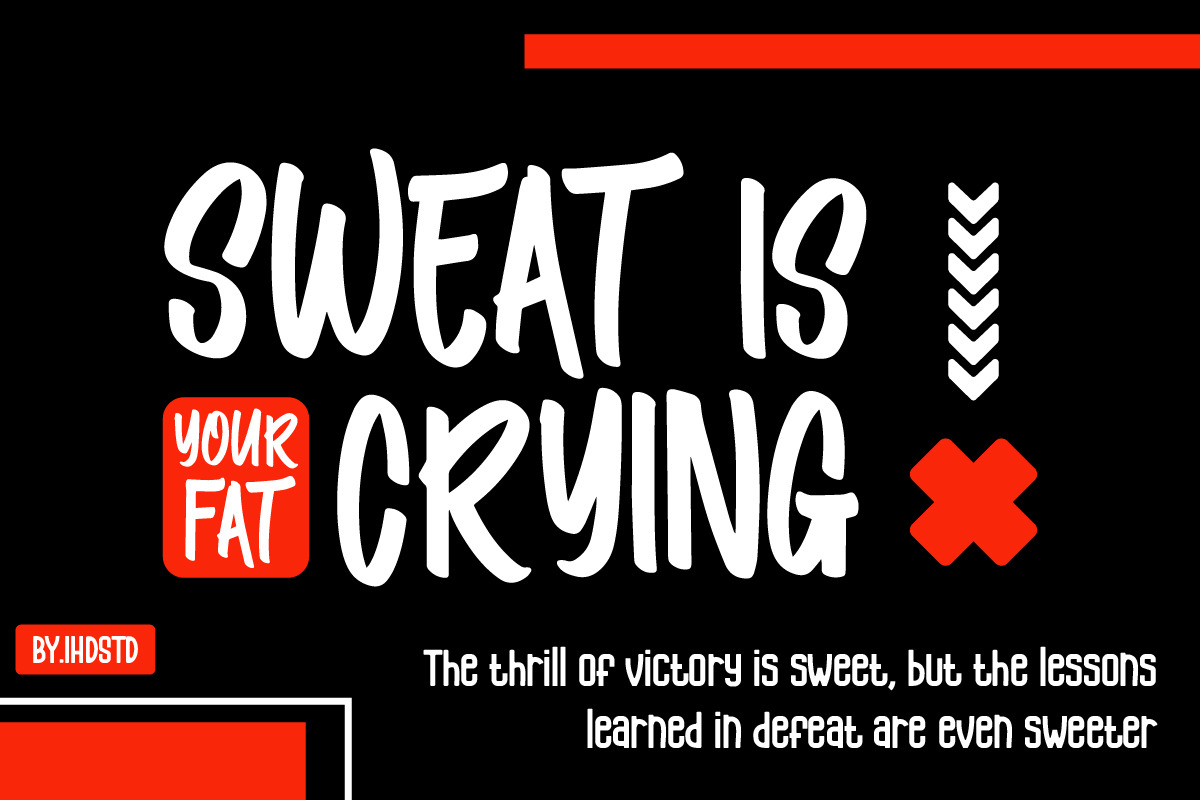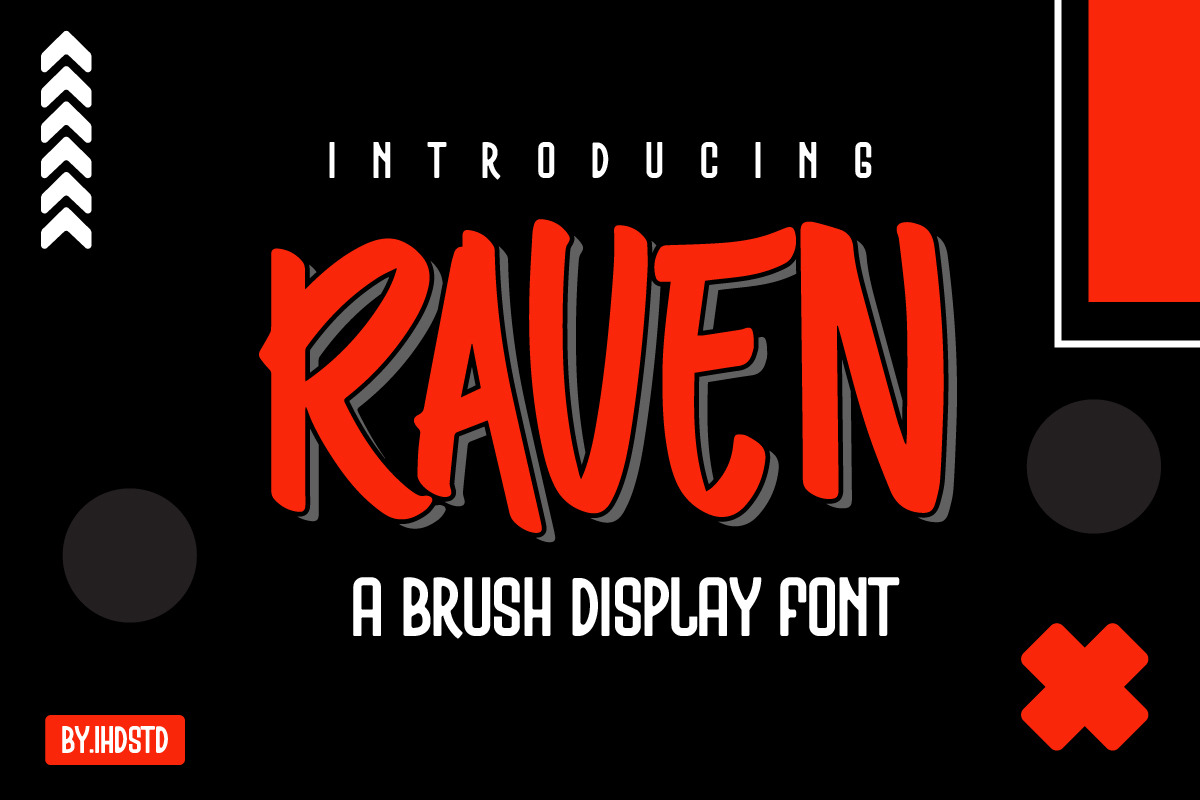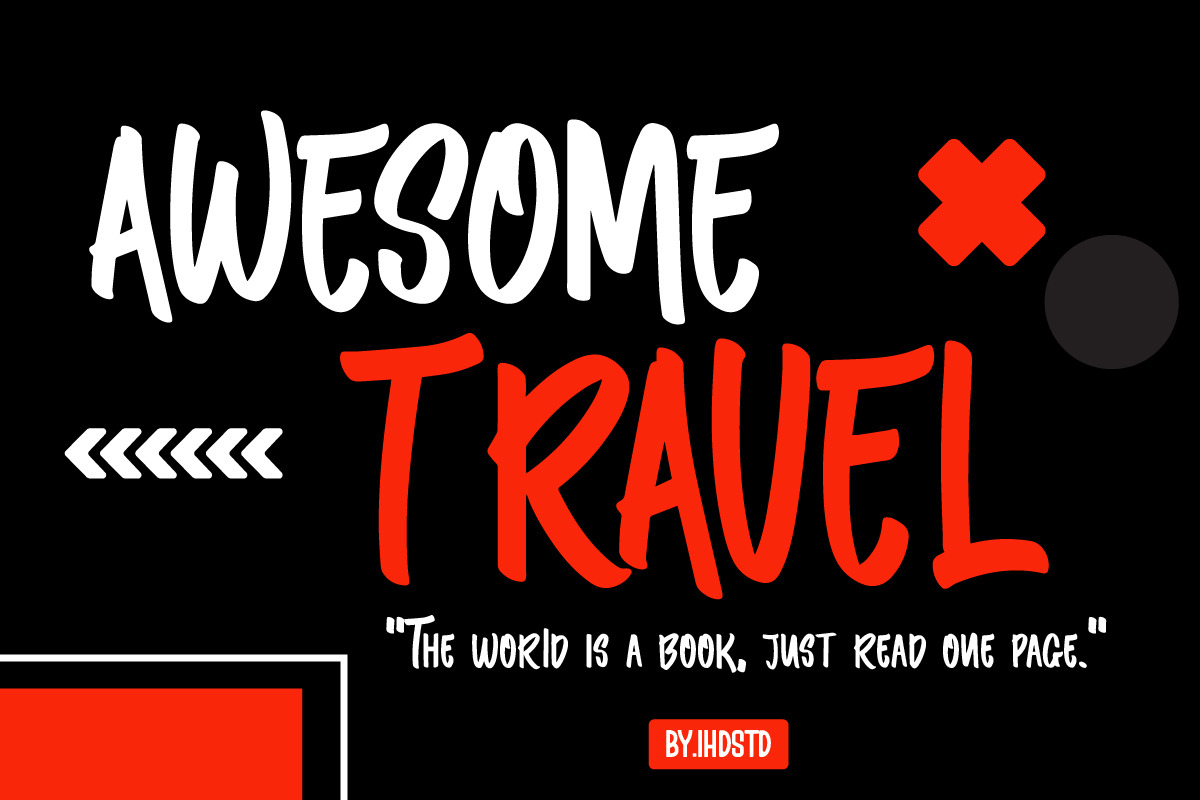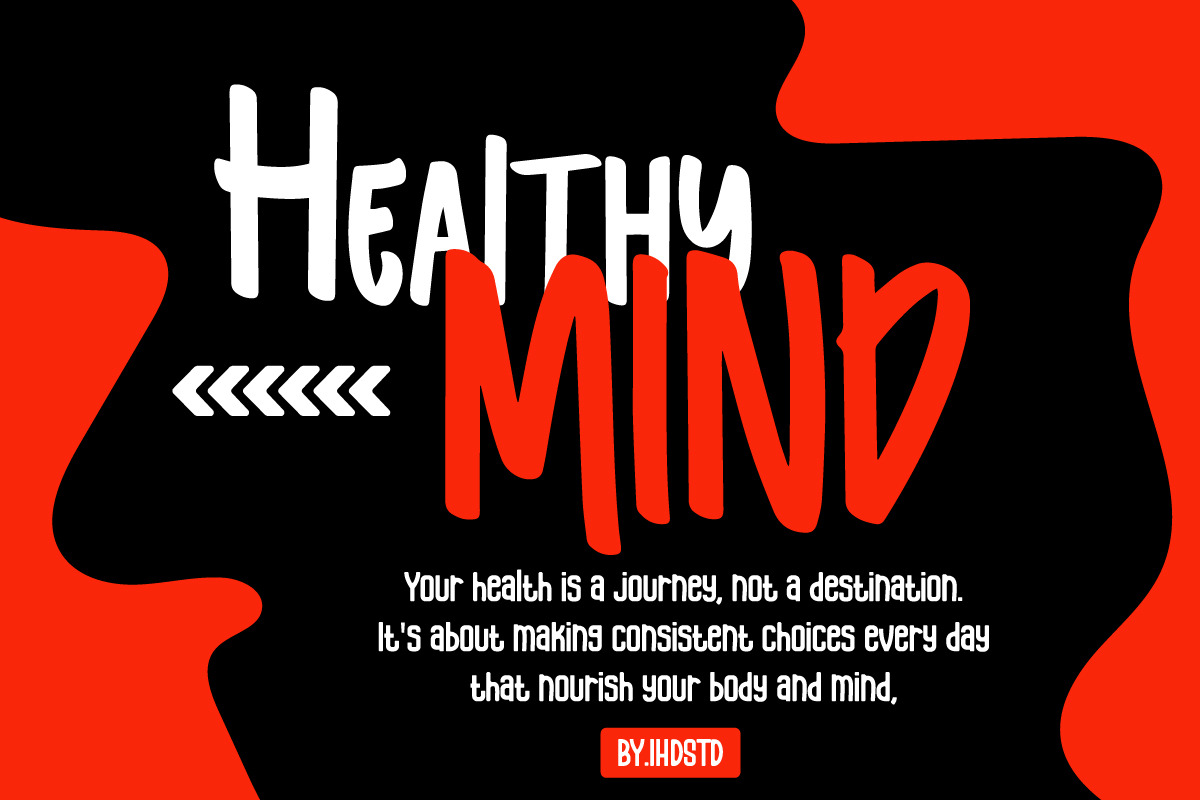
Raven Brush Display Font
Raven Brush Display Font is our new item that suitable for your Posters.
Great for Logo, Poster, Sticker, Jersey, Invitation Card, Brochure, etc.